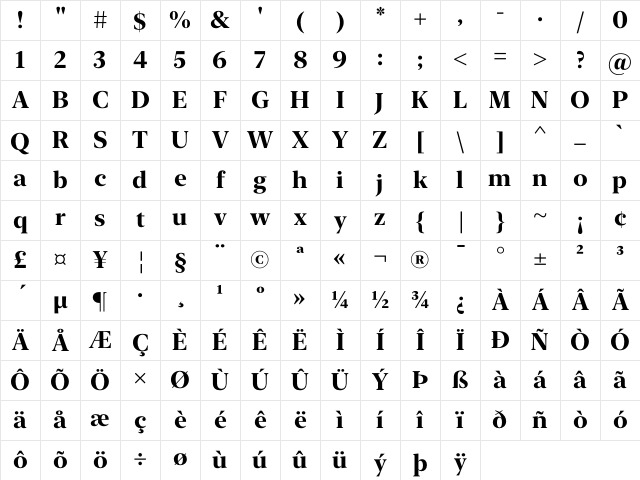
New York Extra Large Bold
Foundry: Apple Inc.
Designer: Apple Inc.
Design Context for New York Extra Large
New York Extra Large is a composed and adaptable typeface that performs quietly and consistently across a wide range of design contexts. Its bold stroke weight gives it real presence on the page.
Who designed the New York Extra Large Bold font?